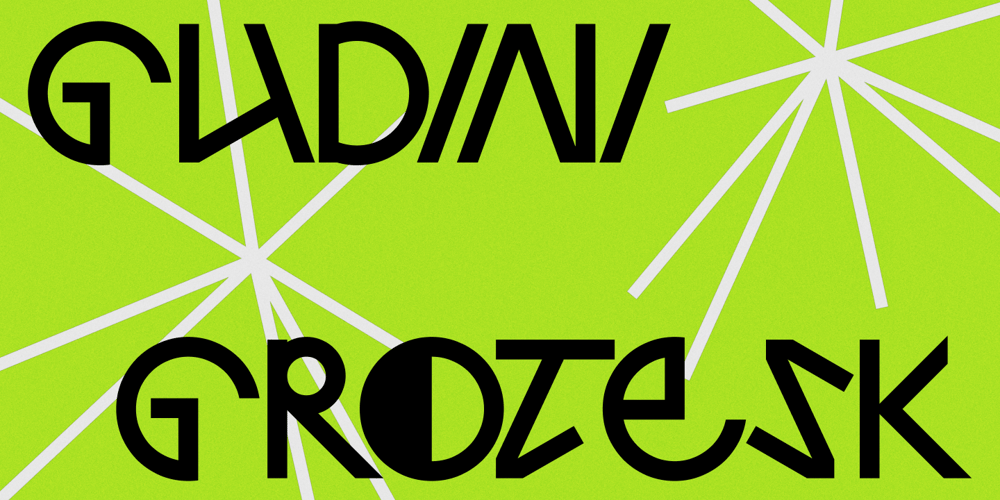
SK Gudini Grotesk
SK Gudini Grotesk font
SK Gudini Grotesk Font Family was designed by Tikhon Reztcov and published by Shriftovik. SK Gudini Grotesk contains 1 styles and family package options. SK Gudini Grotesk is a modern decorative font with a futuristic and minimalist design. The font combines geometric shapes and abstract elements, creating a unique visual style. Clear contours and asymmetric elements give the font a technological and contemporary look. SK Gudini Grotesk supports extended Latin and Cyrillic, offering diverse design options, making it versatile for various projects.